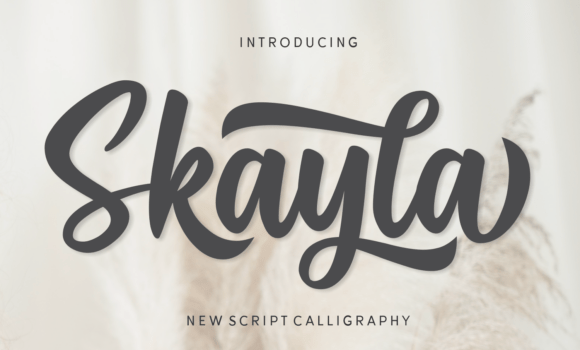
skayla
Skayla Font – Free Download Introduction to Skayla Font Skayla is a bold and confident script calligraphy font that balances modern style with smooth readability. 📸 Preview Gallery 3 images 📌 Product Name Skayla Font 👤 Author Creative Fabrica Fonts